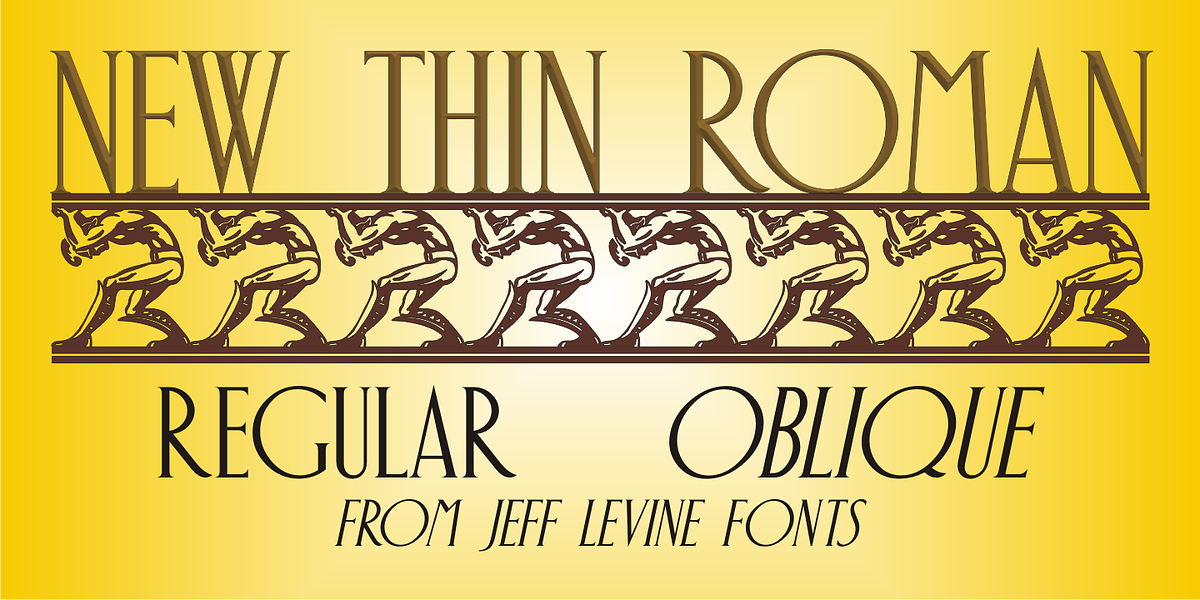
New Thin Roman JNL
The 1912 publication “Essentials of Lettering” has an example of a hand lettered, condensed spurred serif design called “Compressed Roman”.
This is now available digitally as New Thin Roman JNL in both regular and oblique versions.